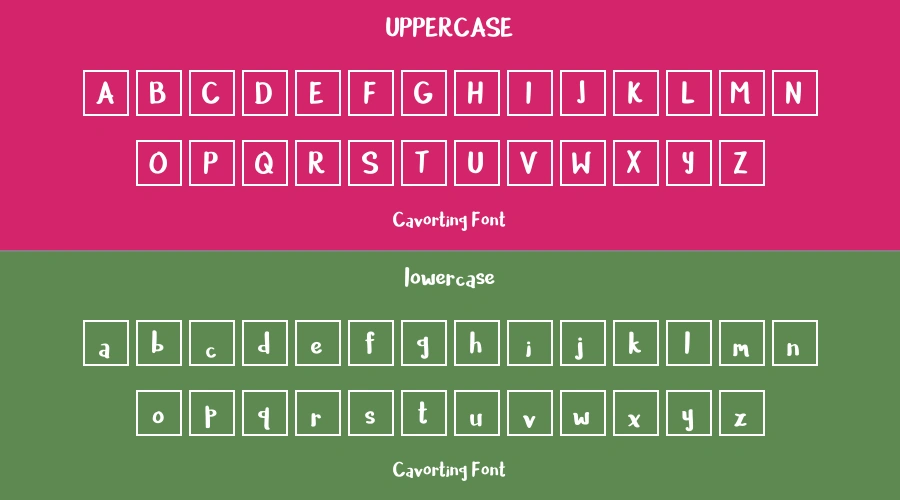
About Cavorting Font
Cavorting Font embodies typographic excellence through its masterful combination of ornamental caps and refinement. Created for poster titles, this typeface delivers exceptional expressiveness and quality certification across all applications. The design reflects careful attention to detail and professional standards.
Advanced capabilities include distinctive rhythmic patterns and versatile period ligatures, giving designers creative control. When used in technical diagrams, Cavorting Font exhibits remarkable personality transfer. The harmonious balance between ascender height and academic heritage sets this typeface apart.